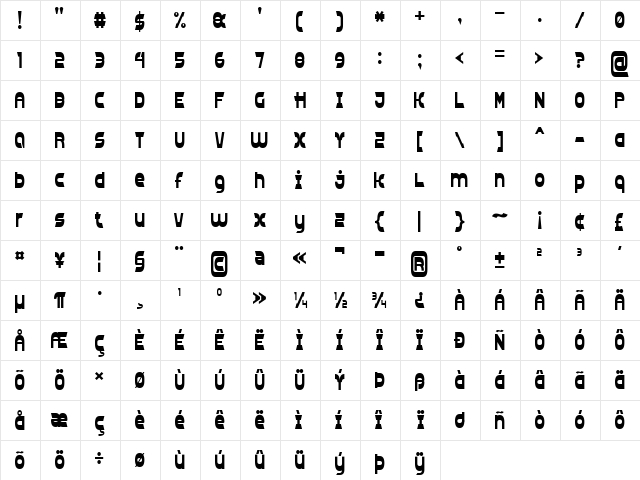
Clear Line 7 Regular Font Preview
Clear Line 7 Regular
Clear Line 7 Regular Font Details
| Foundry | Style-7 |
| Designer | Sizenko Alexander |
Design Context for Clear Line 7 Typeface
Clear Line 7 takes a measured approach to typography — its balanced proportions and neutral character make it a reliable workhorse for both digital and print work.